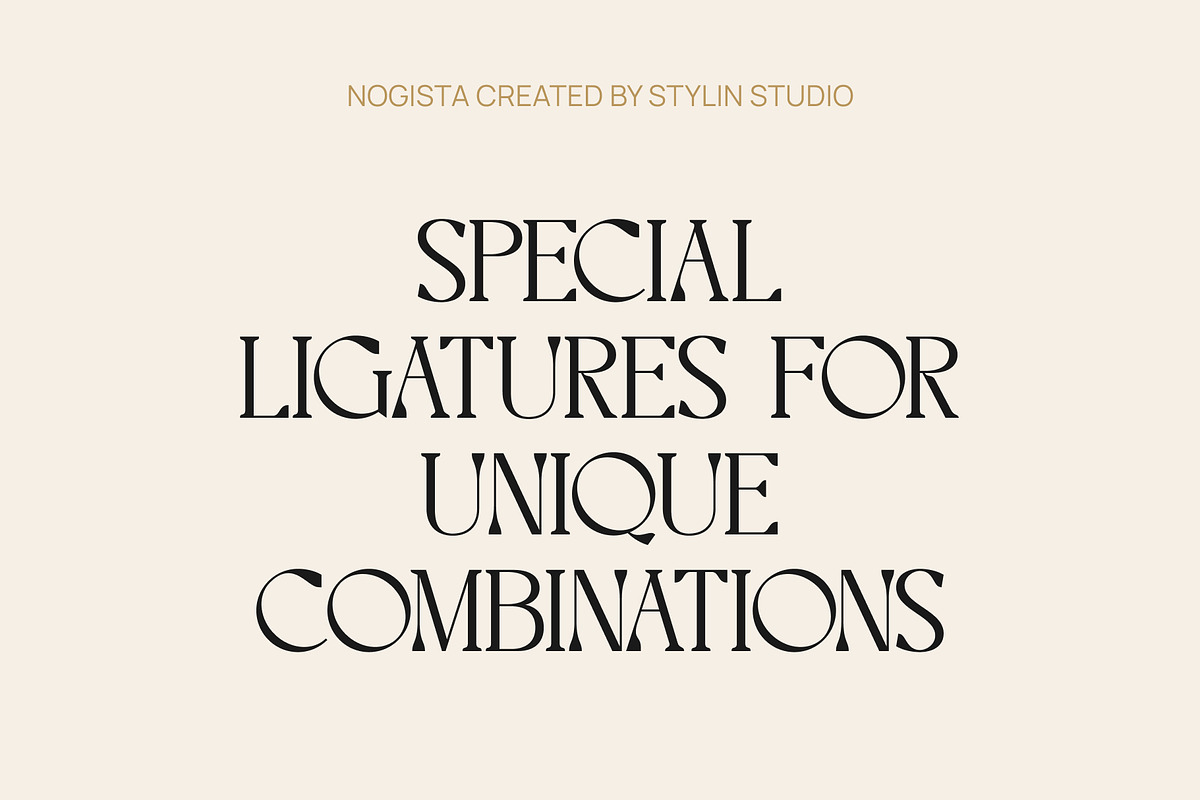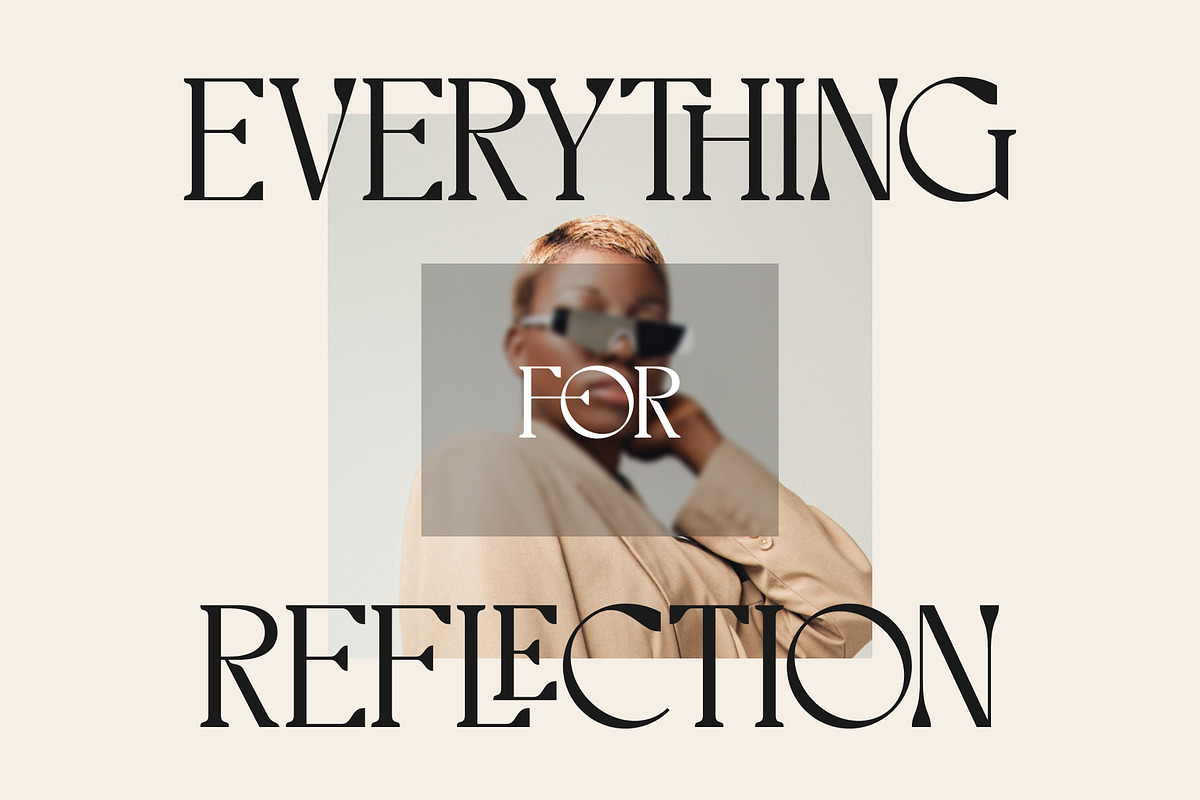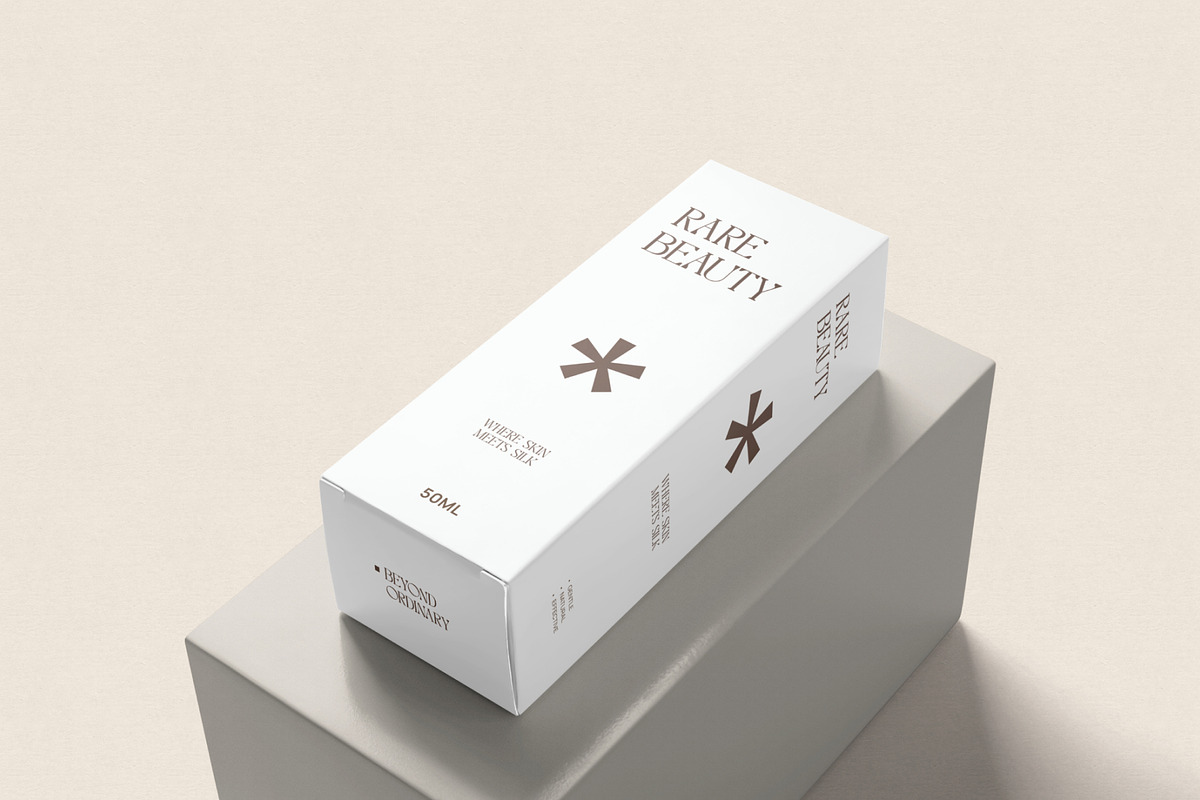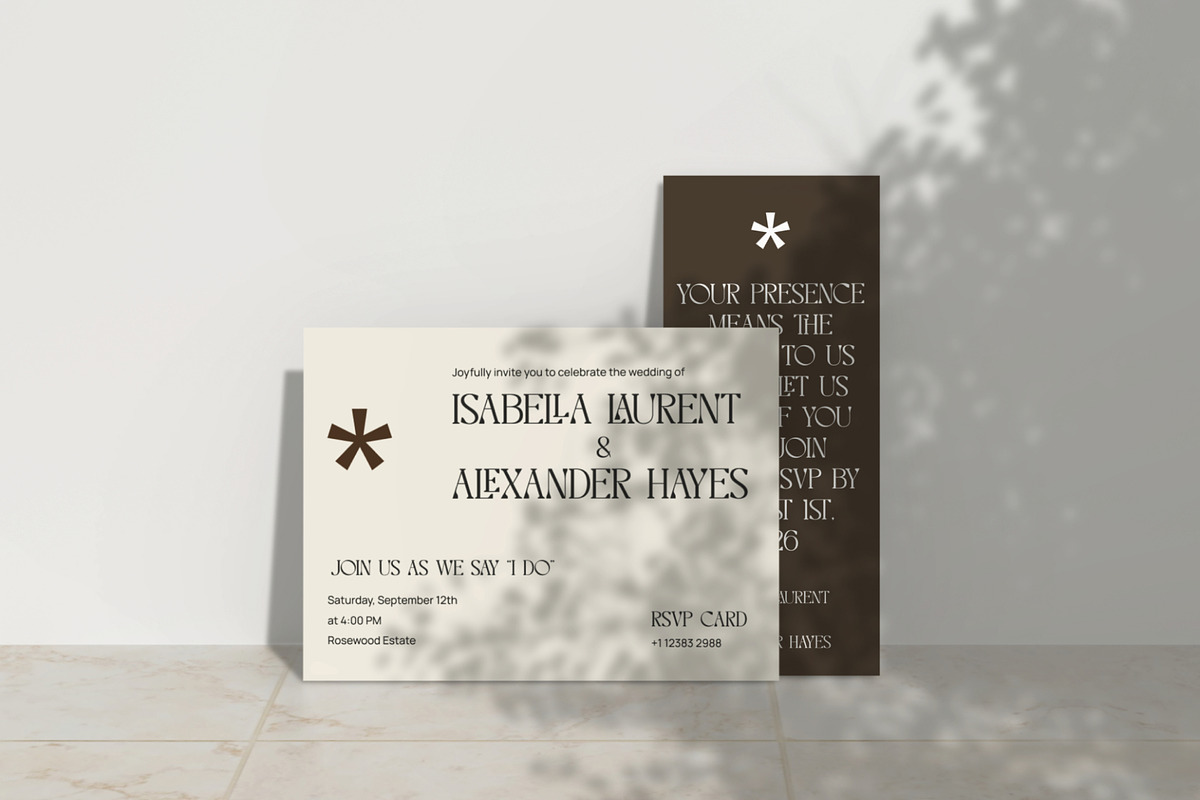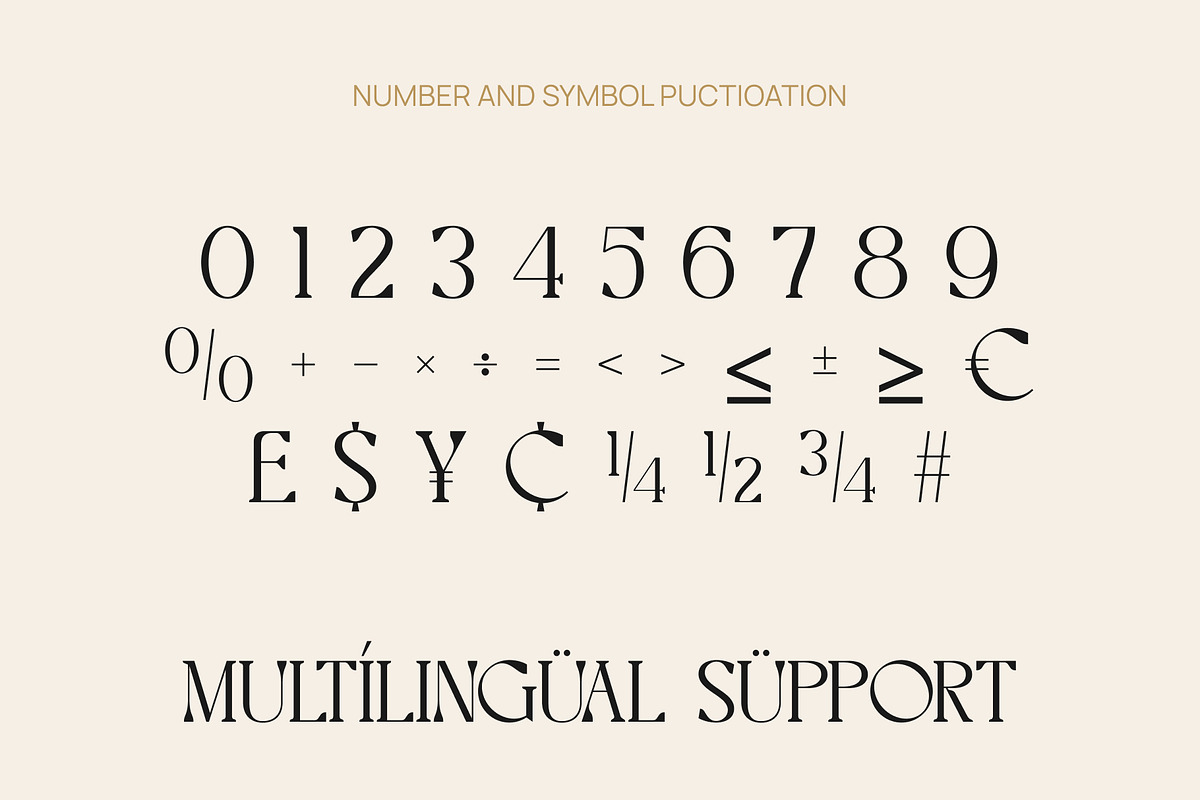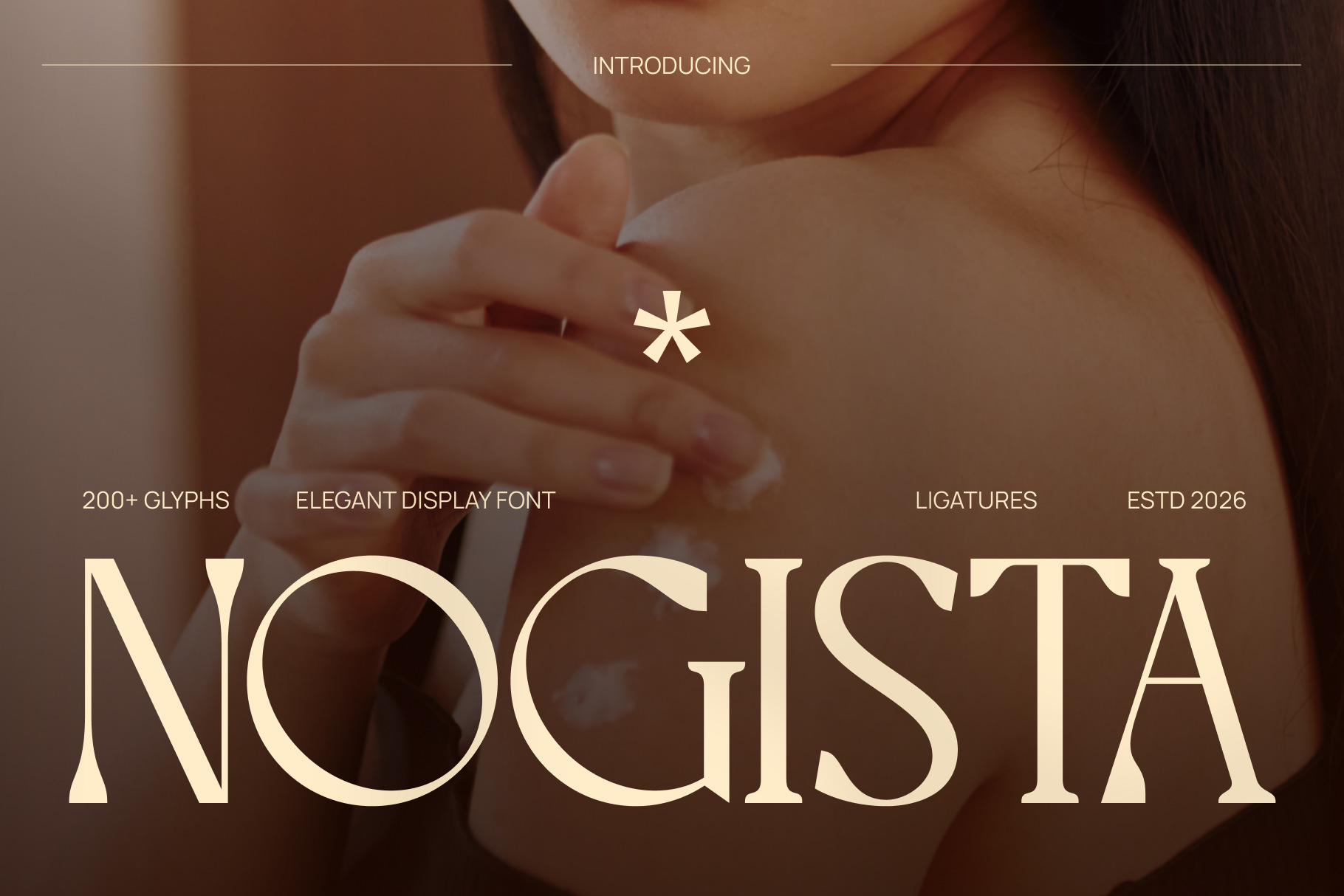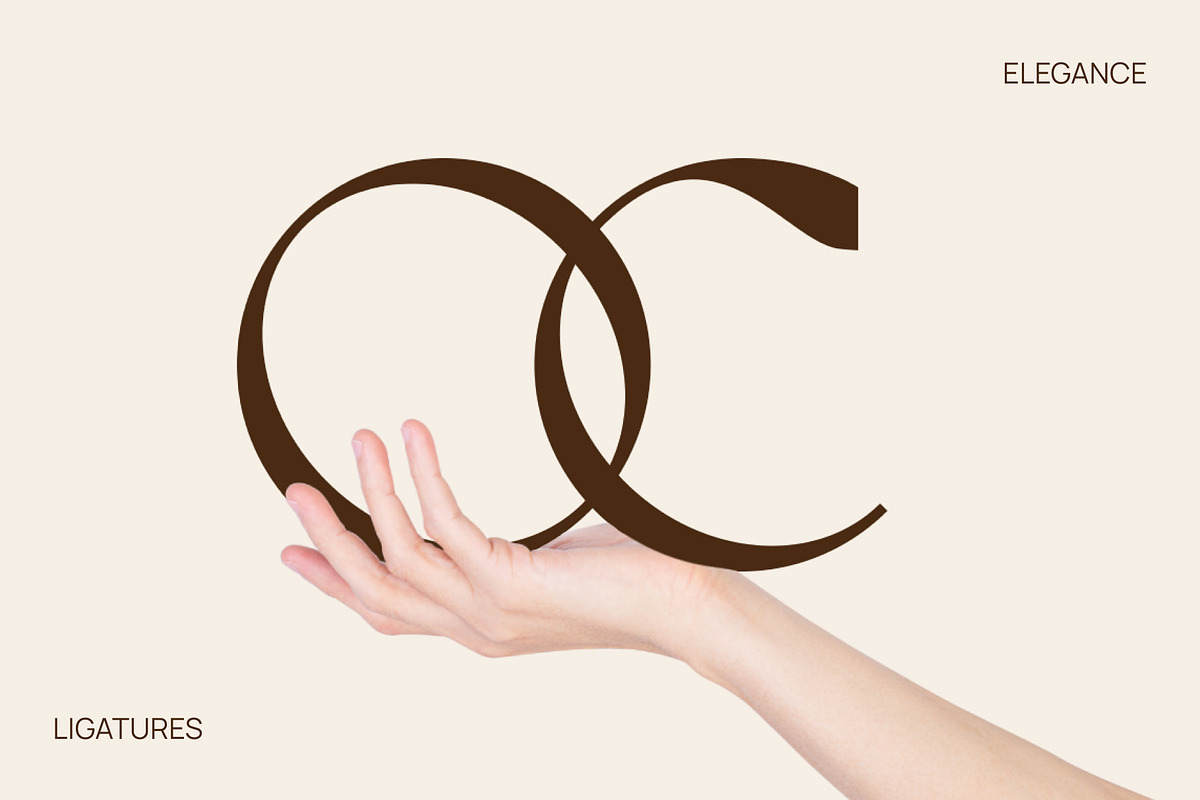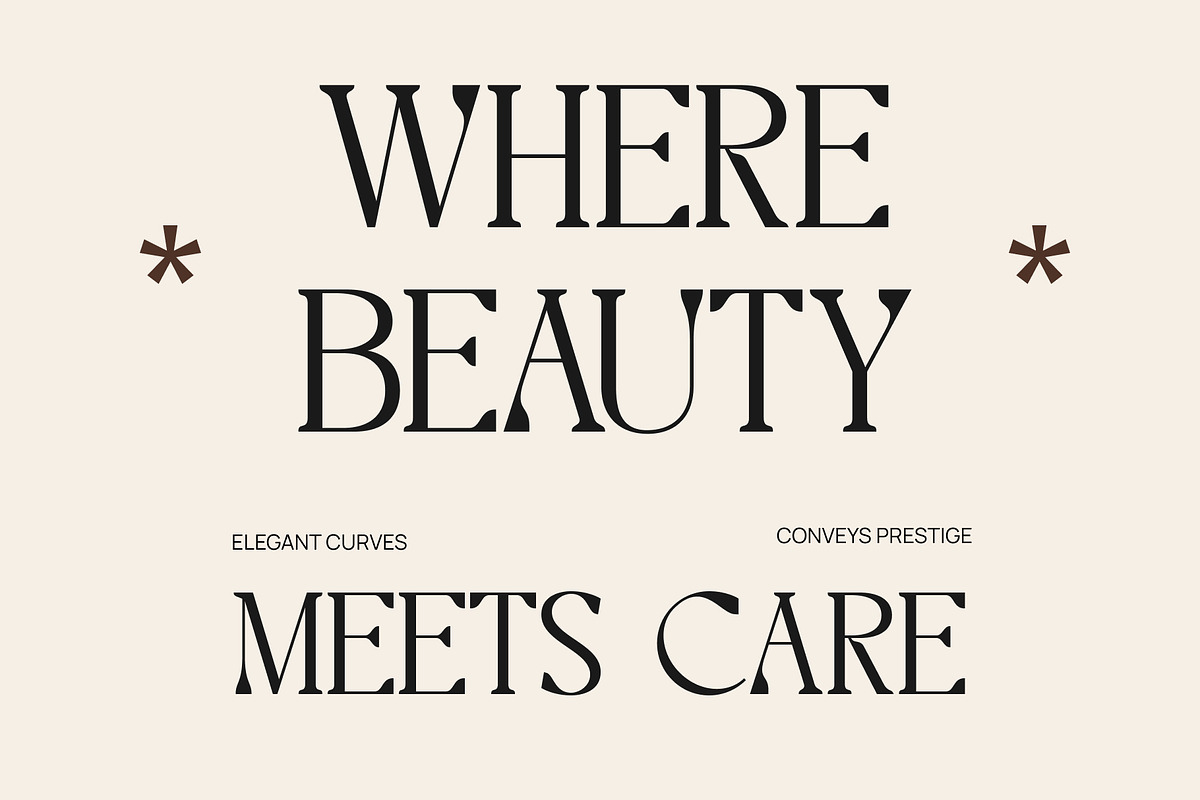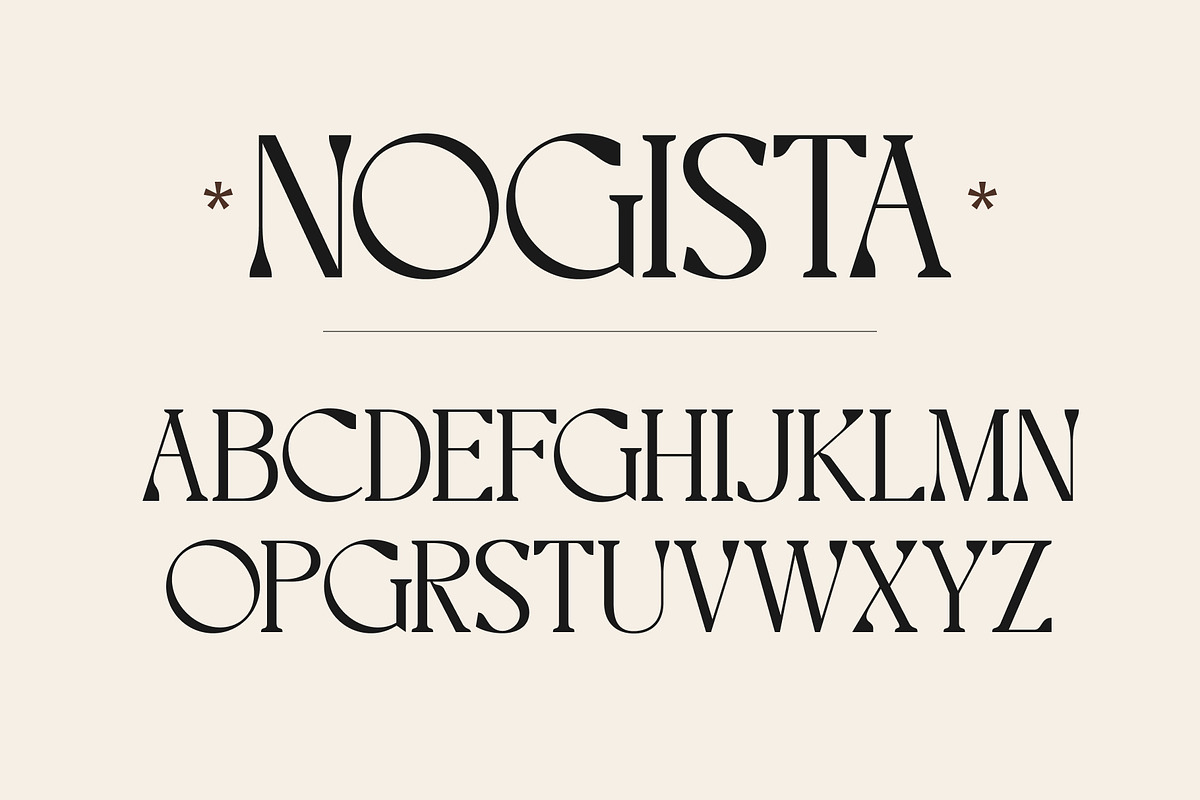
Elegant Beauty – Nogista Font
Elegant Beauty – Nogista Font is a refined display typeface that brings a sense of grace, charm, and modern sophistication to any design. With its smooth curves, balanced proportions, and subtle stylistic details, Nogista creates a timeless aesthetic that feels both luxurious and effortlessly elegant. Perfect for projects that aim to convey beauty, femininity, and premium quality.
1 Style: Regular
Full Character Set: Uppercase, lowercase, numbers, symbols, and punctuation
From wedding invitations to fashion branding, Nogista delivers a delicate yet confident presence. Its clean readability combined with elegant flair makes it ideal for logos, social media visuals, editorial layouts, and high-end packaging.